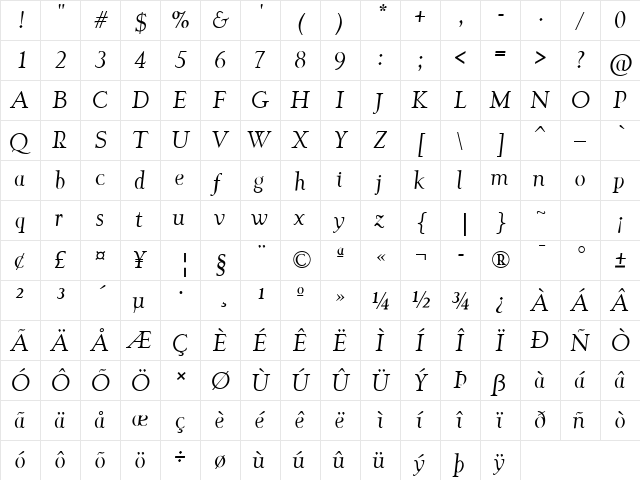
Garava Italic
Design Context for Garava Typeface
Garava offers clean, dependable letterforms without strong stylistic allegiance, making it a practical choice for designers who need flexibility. Its italic angle brings a sense of urgency and motion to the letterforms.
Pro Tip: Use Garava for emphasis, pull quotes, and subheadings where its slanted energy can add rhythm to the layout.